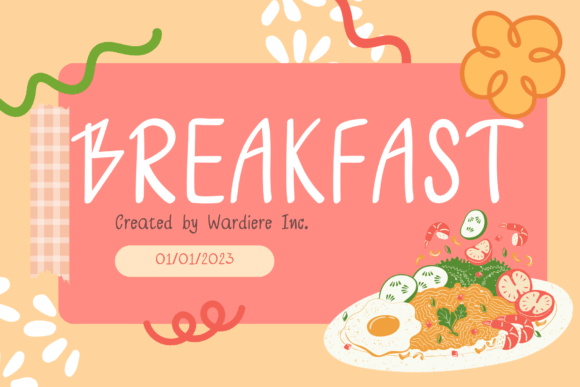
Introducing the Charm of Breakfast Font: Elevate Your Designs with Elegance
Are you on the lookout for a font that exudes charm and elegance, perfect for adding a touch of sophistication to your designs? Look no further than the Breakfast Font. This beautiful, handwritten font is designed to make your creations stand out, whether it’s a wedding invitation, a thank you card, a quote, or a logo. Its versatility and aesthetic appeal make it an ideal choice for designers and crafters alike.
Aesthetic Appeal and Versatility
The Breakfast Font is more than just a typeface; it’s an experience. It brings a sense of warmth and personality to any project, making it feel more approachable and engaging. The font’s elegant strokes and carefully crafted letters give it a unique charm that is hard to find in other fonts. Whether you’re working on a wedding invitation card, a thank you card, quotes, greeting cards, logos, business cards, invitation cards, or branding materials, this font is sure to impress.
One of the key benefits of the Breakfast Font is its versatility. It’s not limited to just one type of project or medium. You can use it for:
- Thank you cards and greeting cards
- Quotes and inspirational messages
- Social media posts and stories
Why Choose Breakfast Font?
So, what sets the Breakfast Font apart from other fonts? Here are a few reasons why it’s a favorite among designers and crafters:
- Easy on the Eyes: The font is designed to be easy to read and visually appealing, making it perfect for both digital and print materials.
- Handwritten Charm: The Breakfast Font has a unique, handwritten feel that adds a personal touch to any project.
- Newly Written, Unique Style: Unlike other fonts, the Breakfast Font has a distinct style that’s been carefully crafted to stand out.
- Occasion-Ready: Whether it’s a formal event or a casual gathering, this font is suitable for every occasion.
Using Breakfast Font for Your Designs
Using the Breakfast Font in your designs is easy. Here are a few tips to get you started:
- Pair it with Other Fonts: Experiment with pairing the Breakfast Font with other fonts to create a unique look.
- Play with Colors: The font looks great in a variety of colors, so don’t be afraid to experiment.
- Use it for Headings and Body Text: The Breakfast Font is versatile enough to be used for both headings and body text.
The Breakfast Font is a beautiful, elegant, and versatile font that’s perfect for designers and crafters looking to add a touch of charm to their projects. Its handwritten feel, ease of readability, and suitability for every occasion make it a valuable addition to any design toolkit. Whether you’re working on a wedding invitation, a logo, or a social media post, the Breakfast Font is sure to elevate your designs and make them stand out.